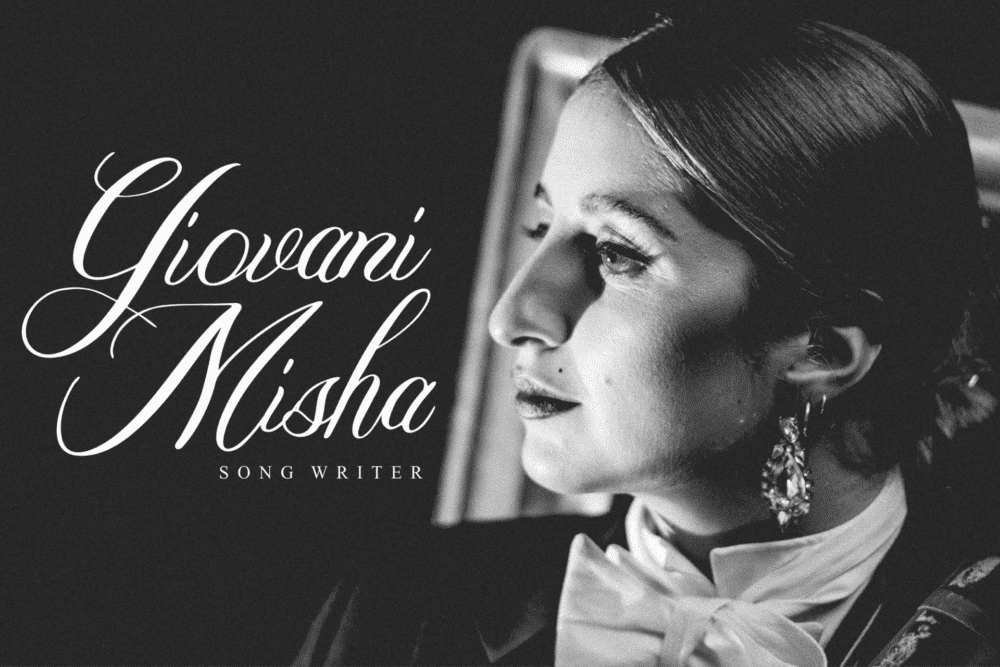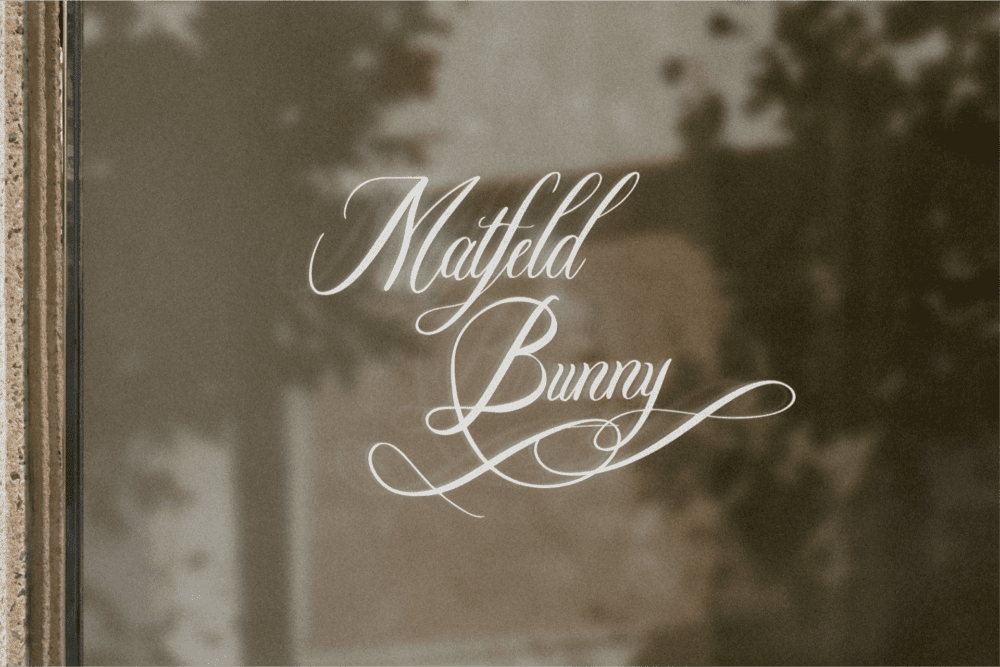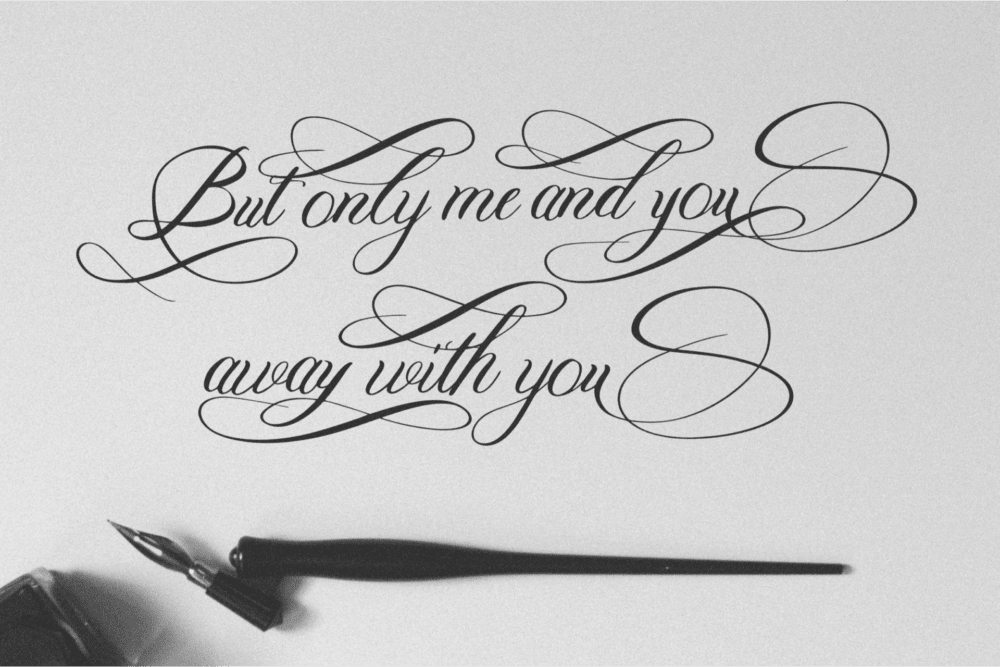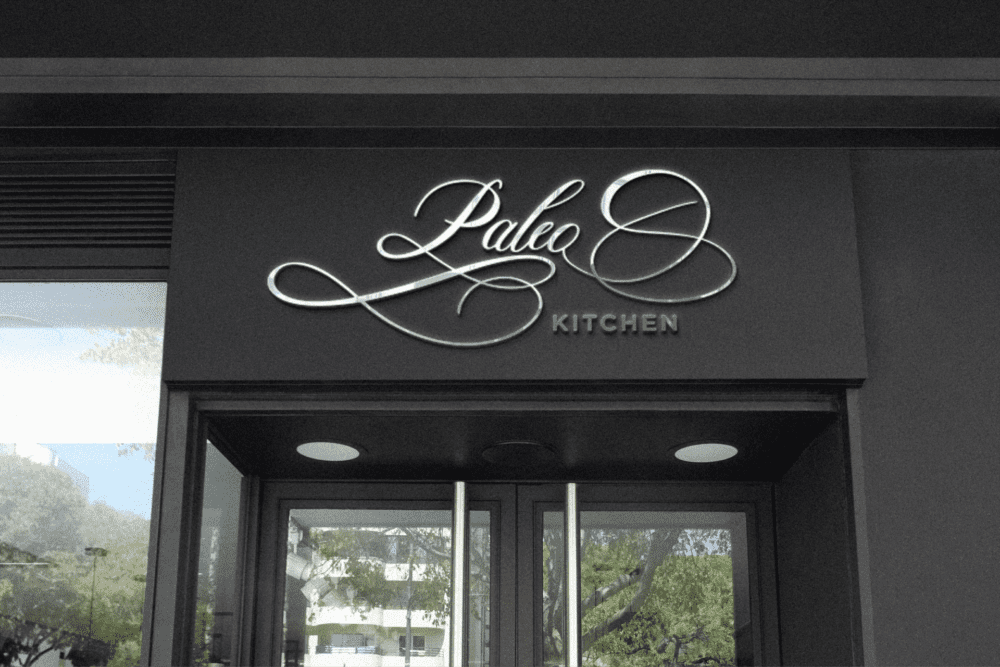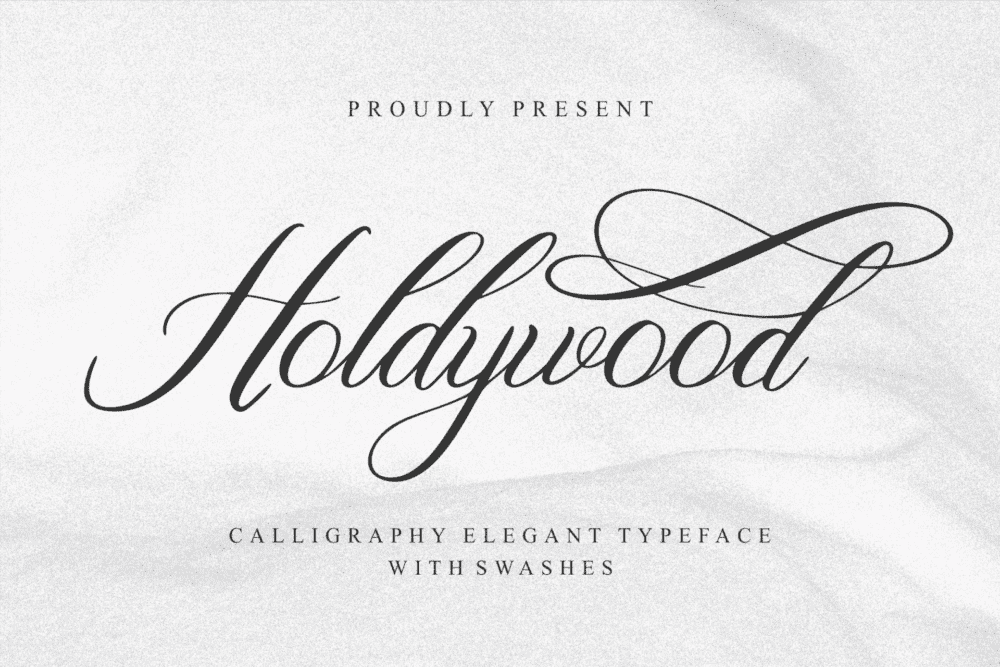
Holdywood Font
Holdywood is an elegant and flowing calligraphy font. It is PUA encoded which means you can access all of the glyphs and swashes with ease! It maintains its classy calligraphic influences while feeling contemporary and fresh.